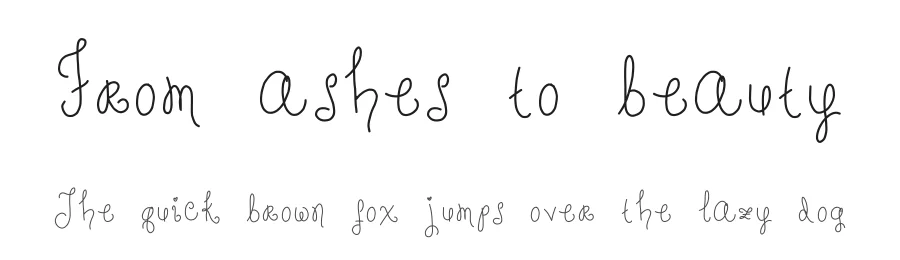
About MTF Memory Font
β₯ Miss Tiina
| Font Family | MTF Memory |
| Full Name | MTF Memory |
| Designer | MissTiina |
MTF Memory Font is a decorative font that shines as a display or heading face. Pair it with a clean sans-serif or serif font for body text β the contrast creates a clear hierarchy while the two styles stay balanced and easy to read.